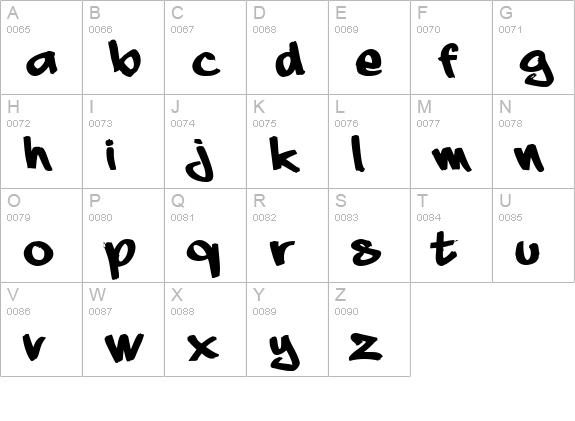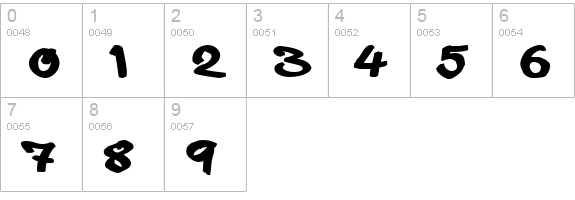
aaaiight! fat Font Details
Introducing the trendy and eye-catching aaaiight! fat font, a bold and dynamic typeface that exudes a sense of modernity and style. Perfect for creating attention-grabbing designs, this font features thick, chunky letters that make a statement wherever they are used. Whether you're working on posters, logos, or social media graphics, aaaiight! fat font is sure to make your text pop. Best of all, aaaiight! fat font is available for free download at FontsMarket.com. Simply head to the website to get your hands on this fantastic font and start incorporating it into your projects today. Don't miss out on the opportunity to add this versatile and striking typeface to your design toolkit. Download aaaiight! fat font now and let your creativity shine!